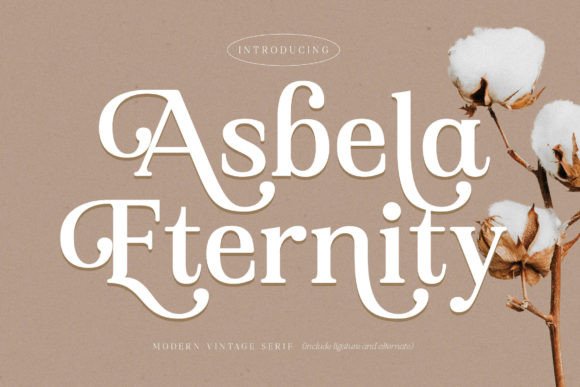
Introducing Asbela Eternity Font, the epitome of modern elegance and timeless beauty! Crafted by the talented Storytype Studio, this serif font is the perfect choice for all your creative endeavors. Whether you're designing a captivating logo, a striking book or movie title, or even a high-end fashion brand, Asbela Eternity is here to elevate your creations to new heights.
With its unique style and contemporary look, Asbela Eternity stands out from the crowd, captivating the hearts of designers and individuals alike. Its intricate details and sleek lines exude sophistication, making it the ideal choice for those who crave a touch of luxury in their designs.
Unleash your creativity with Asbela Eternity Font and witness the magic it brings to your projects. This font's versatility knows no bounds – from magazine layouts to clothing designs, from inspiring lettering to memorable quotes, Asbela Eternity adds that extra touch of class and refinement that truly sets your work apart.
Immerse yourself in the world of Asbela Eternity Font and let its timeless beauty speak for itself. Its captivating curves and graceful strokes evoke emotions, creating a lasting impression on your audience. It effortlessly combines modernity with a classic touch, giving your designs a sense of depth and character.
Stay ahead of the curve with Asbela Eternity Font, the crown jewel of Best Fonts for Web Design 2014. Its meticulously crafted details and rich textures will leave your audience in awe, ensuring your designs leave a lasting impact.
Unlock the potential of your creative vision with Asbela Eternity Font. Let it transform your projects into masterpieces that are as unforgettable as they are visually stunning. Elevate your designs to new heights of elegance and sophistication with Asbela Eternity Font today!